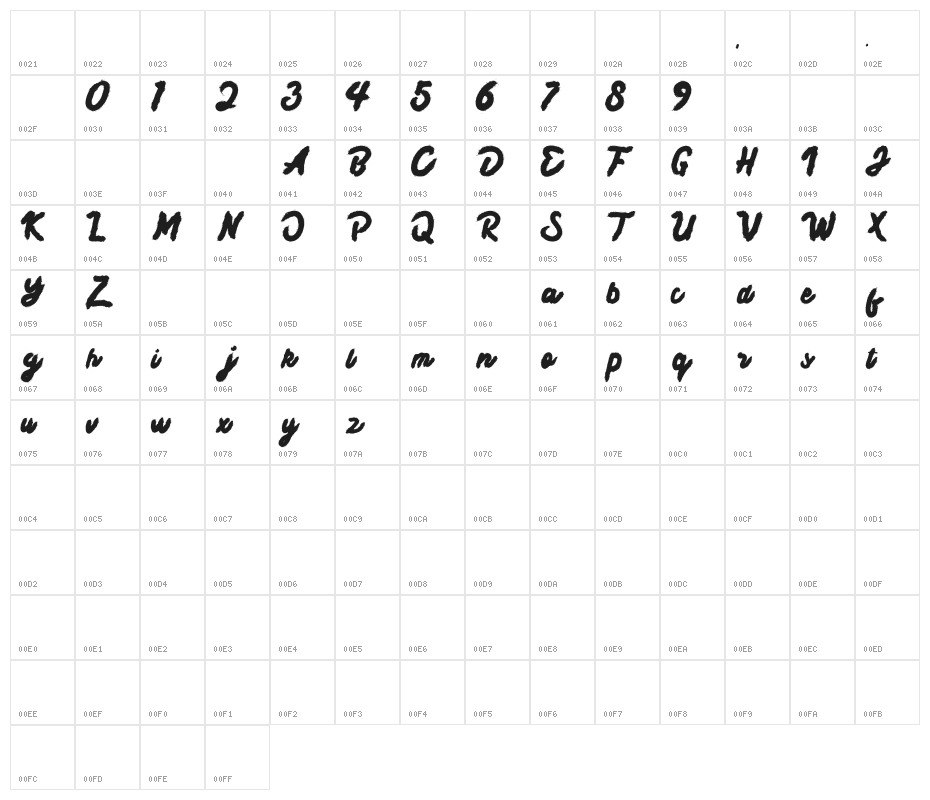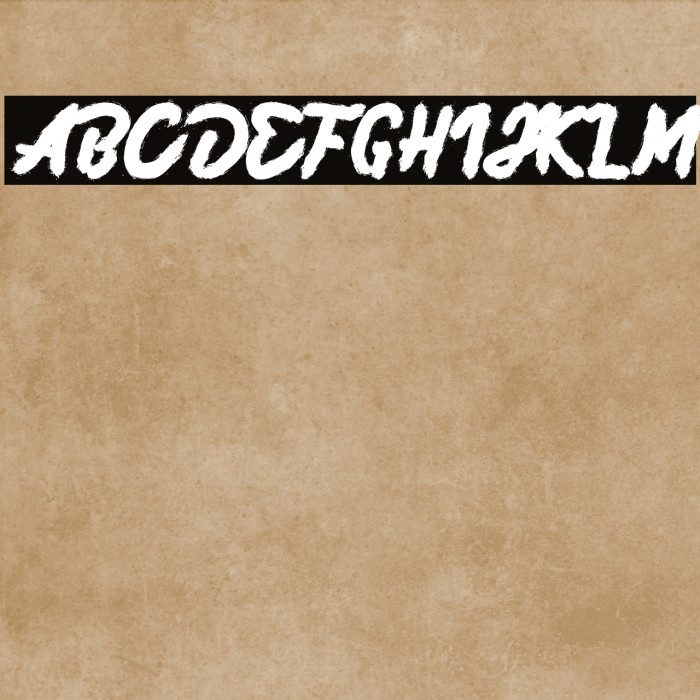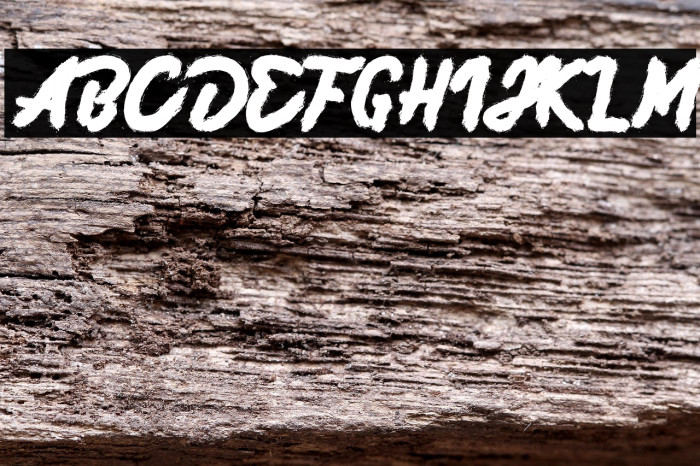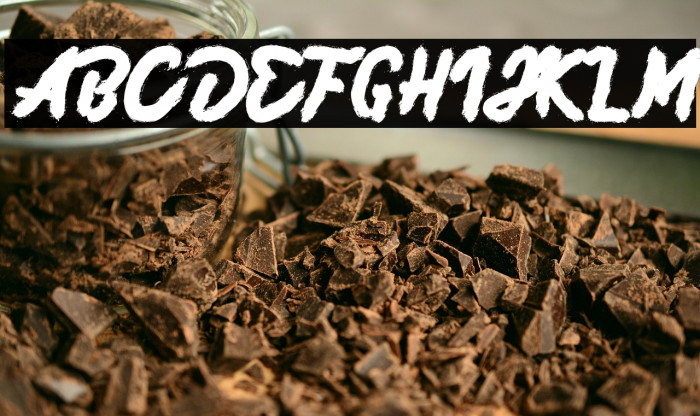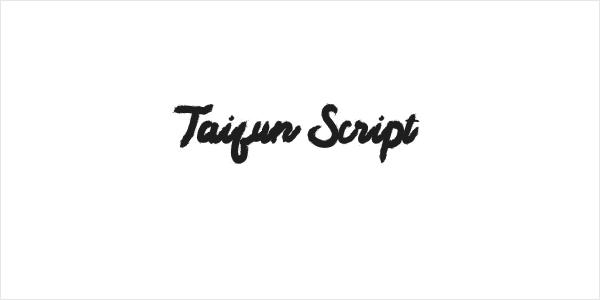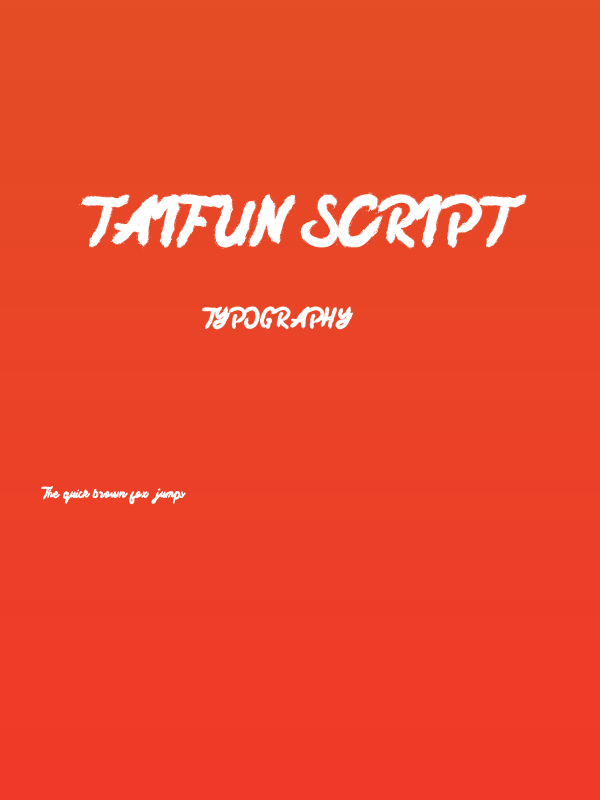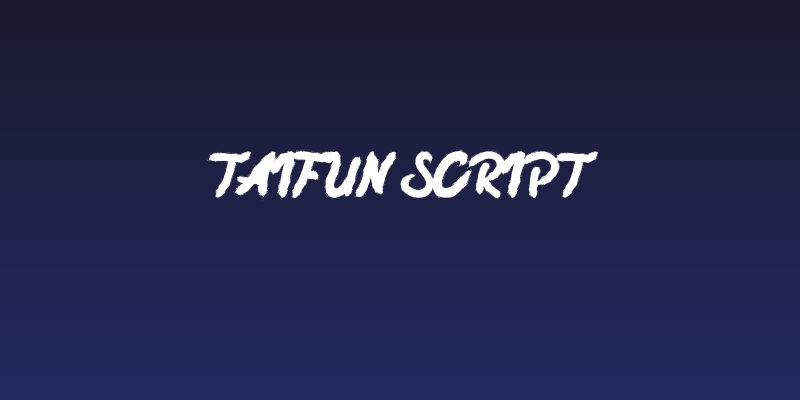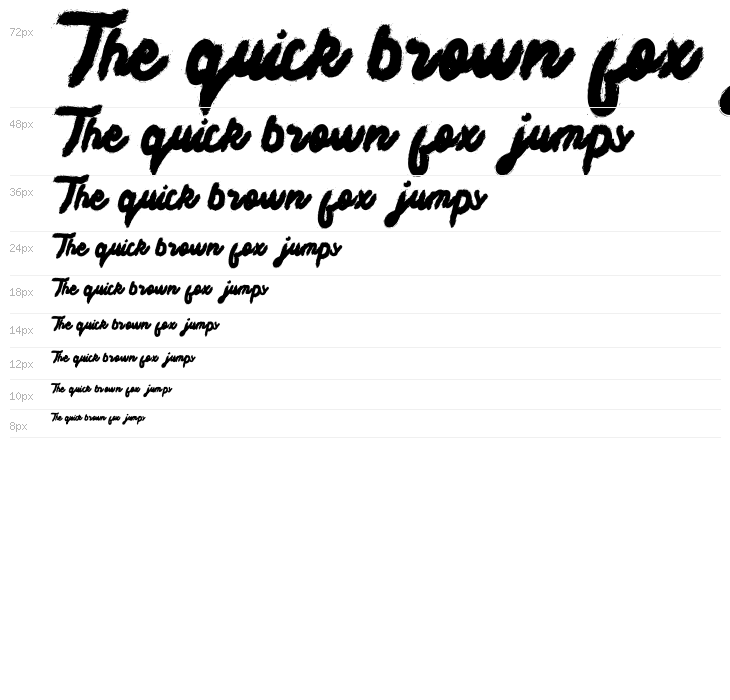
Taifun Script Font
Taifun Script Description
This font showcases a bold and expressive script style, characterized by its fluid and dynamic strokes. The letters are interconnected, creating a sense of movement and continuity. The uppercase letters are bold and prominent, while the lowercase letters maintain a consistent flow, enhancing the script's overall elegance. The numerals are equally bold, matching the style of the alphabet. The special characters are crafted with the same attention to detail, ensuring a cohesive look across all glyphs. This font's brush-like texture adds a handcrafted feel, making it ideal for projects that require a personal touch.
| Use Case | Logos, Headlines, Invitations |
| Proposed Projects | Ideal for branding, invitations, greeting cards, and any project that benefits from a personal, artistic touch. |